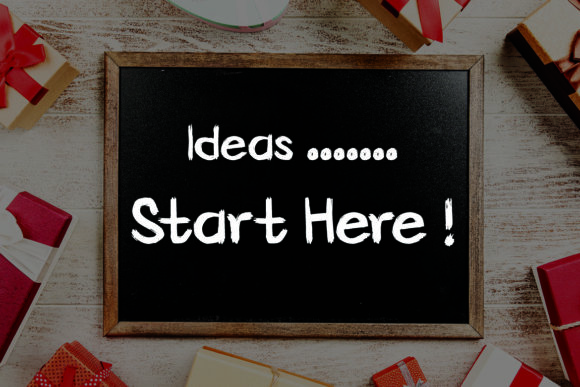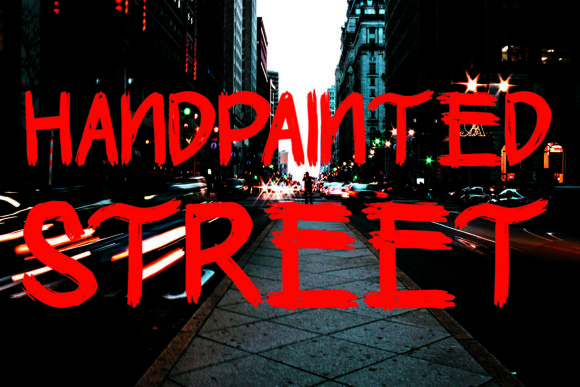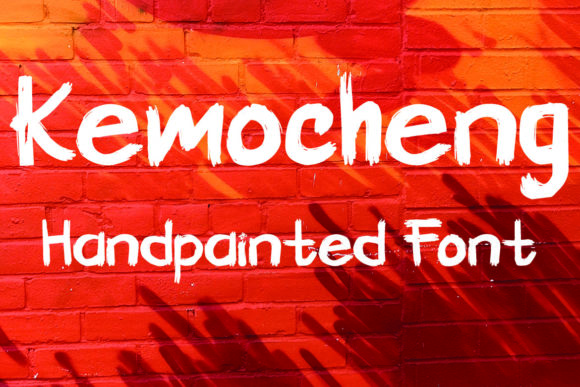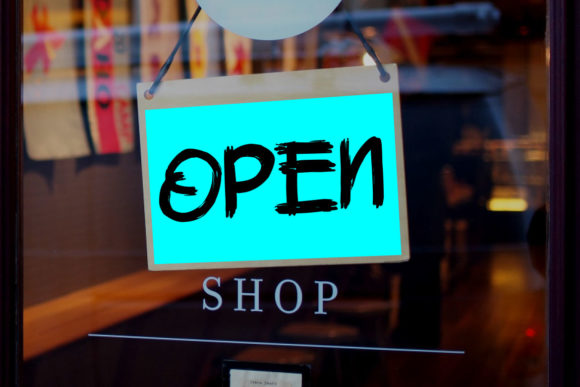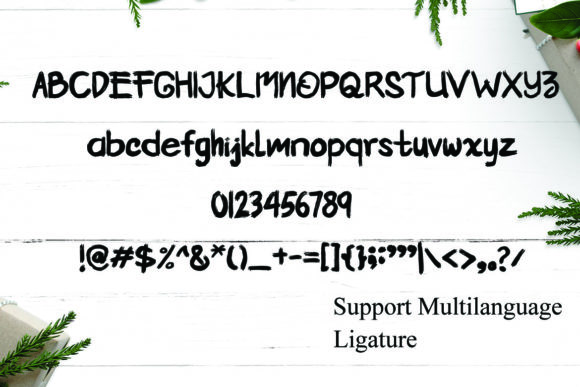
Introduction to Kemocheng Font
The Kemocheng is a fabulously fun, yet elegant display font with tons of energy.
It’s guaranteed to make your text stand out and is perfect for logos, flyers, invitations, displays, product packaging, stores, headers and whatever your imagination holds .